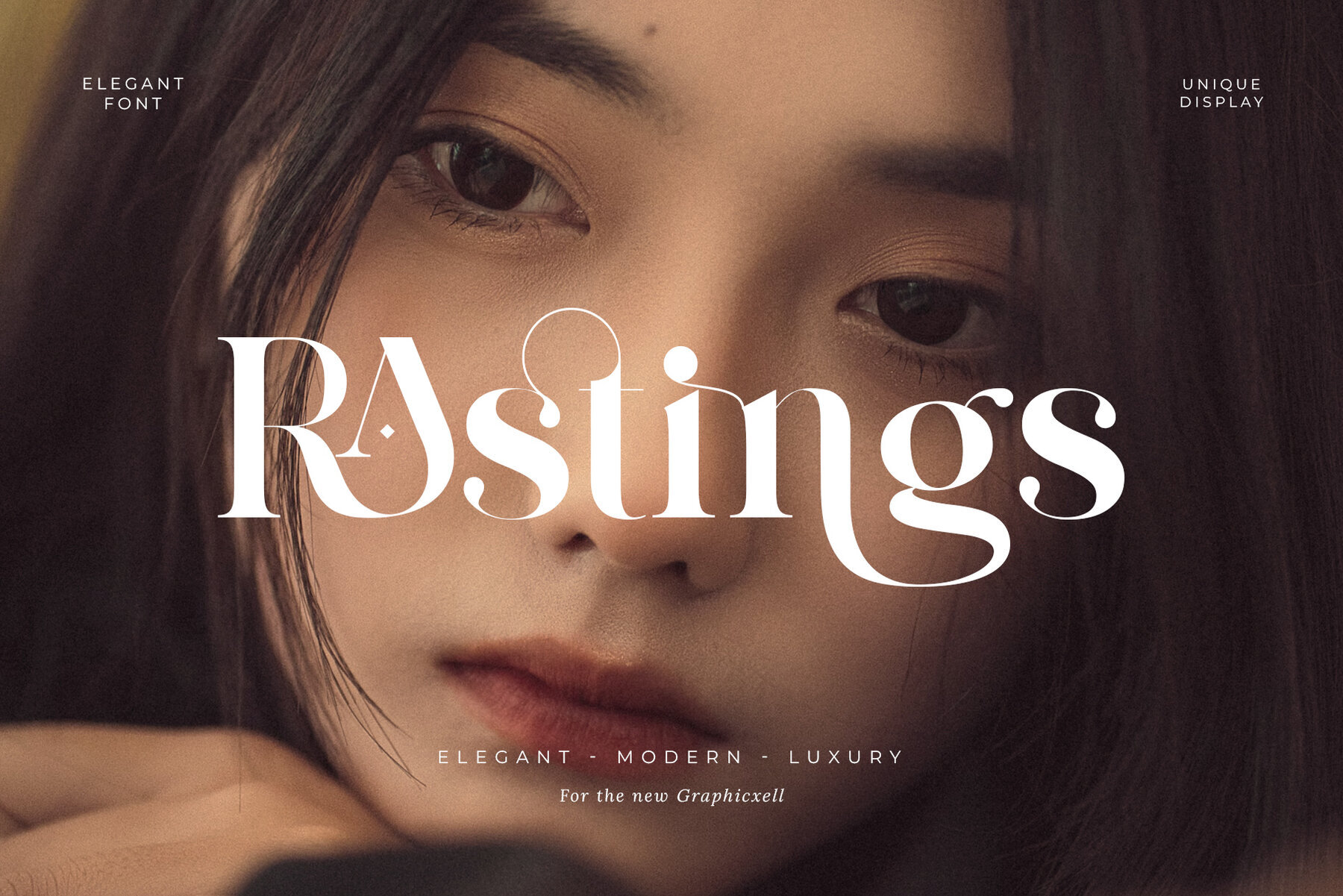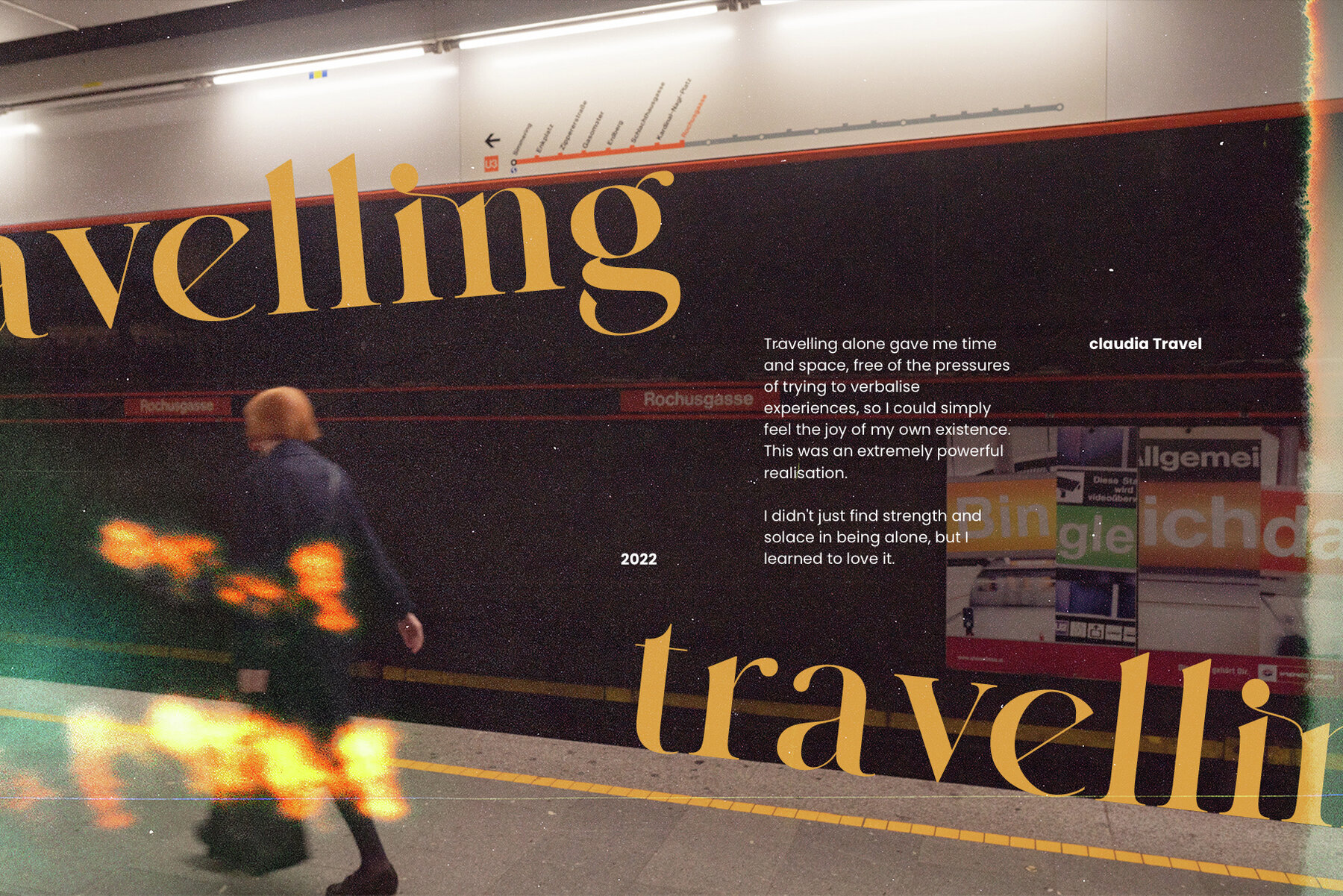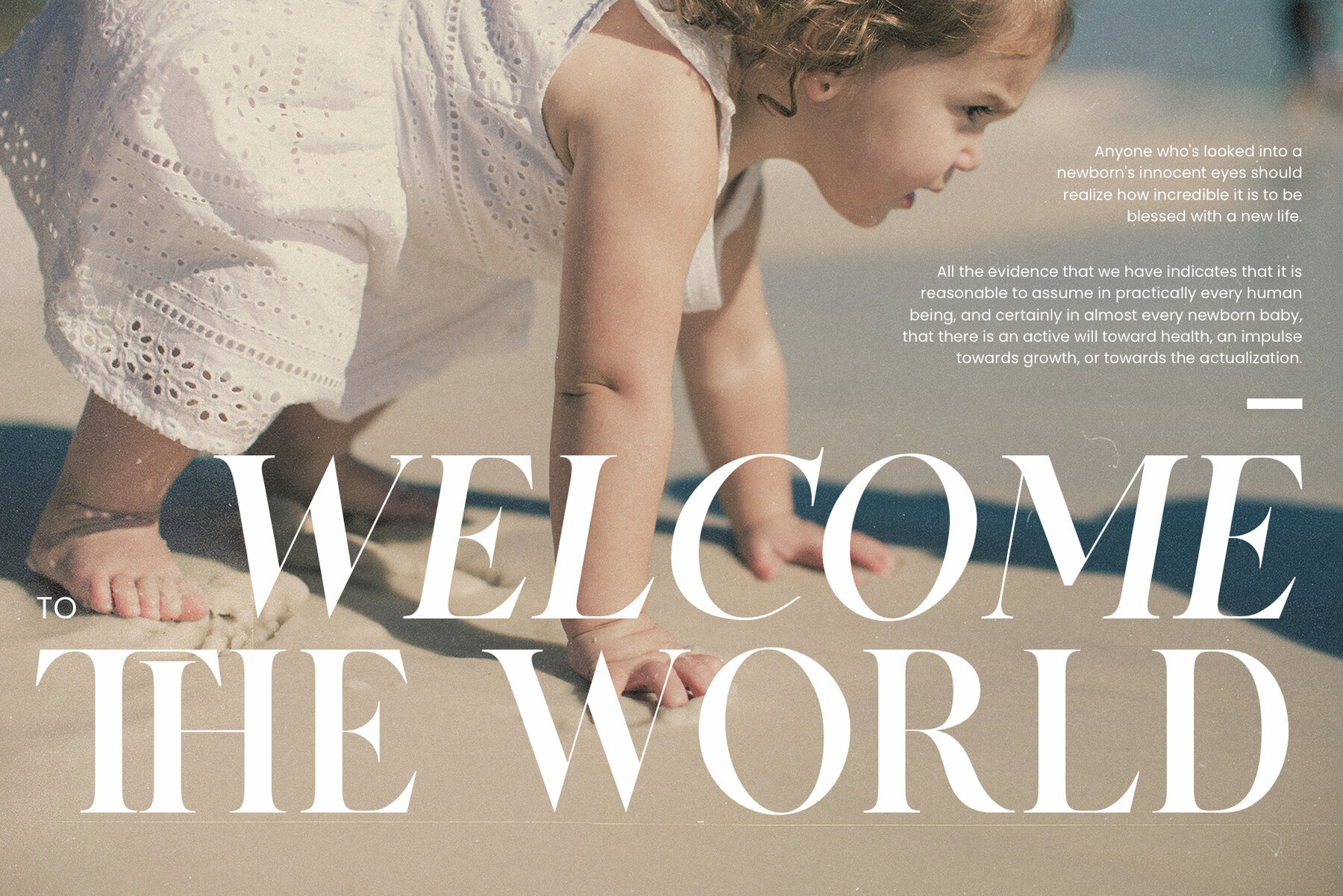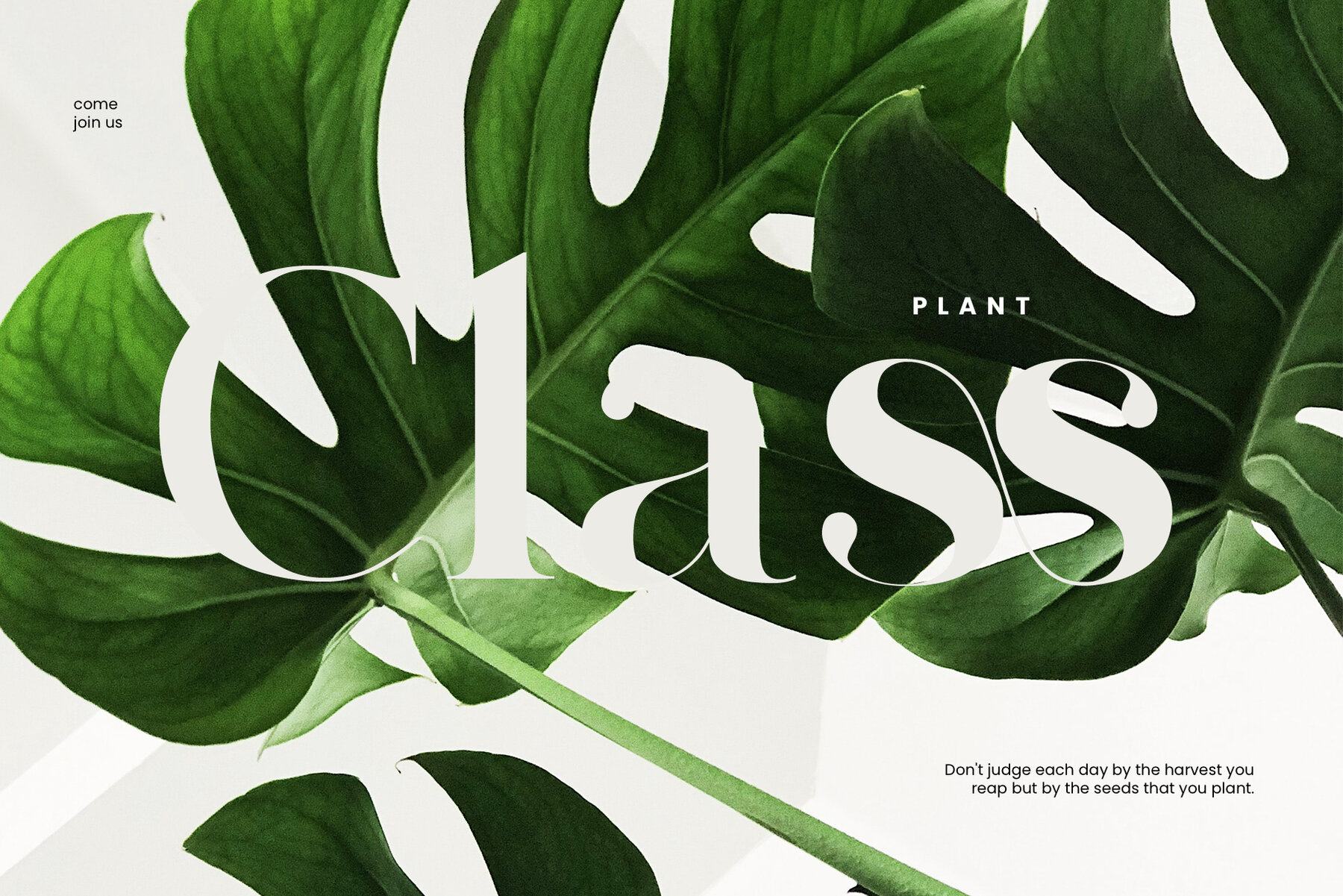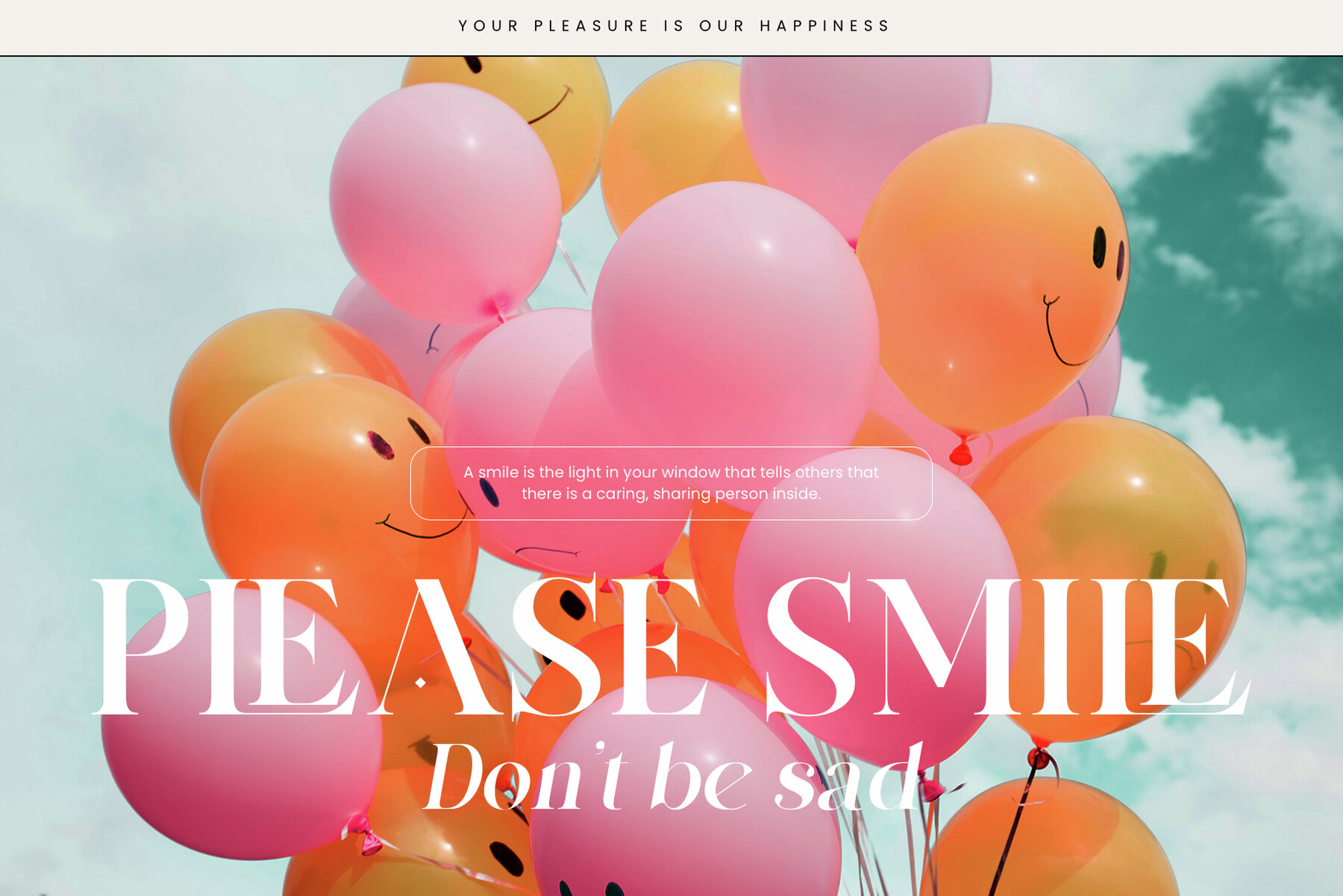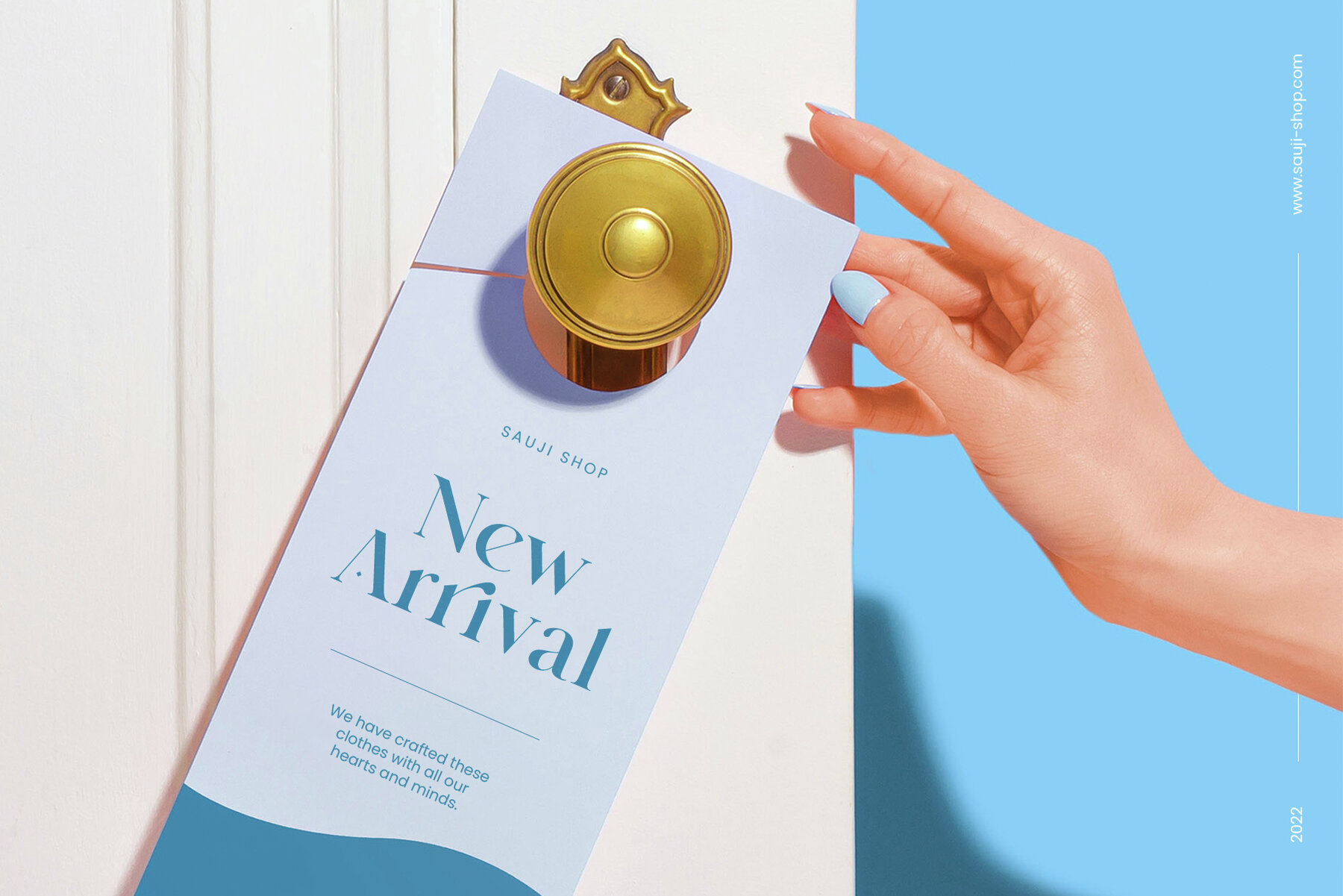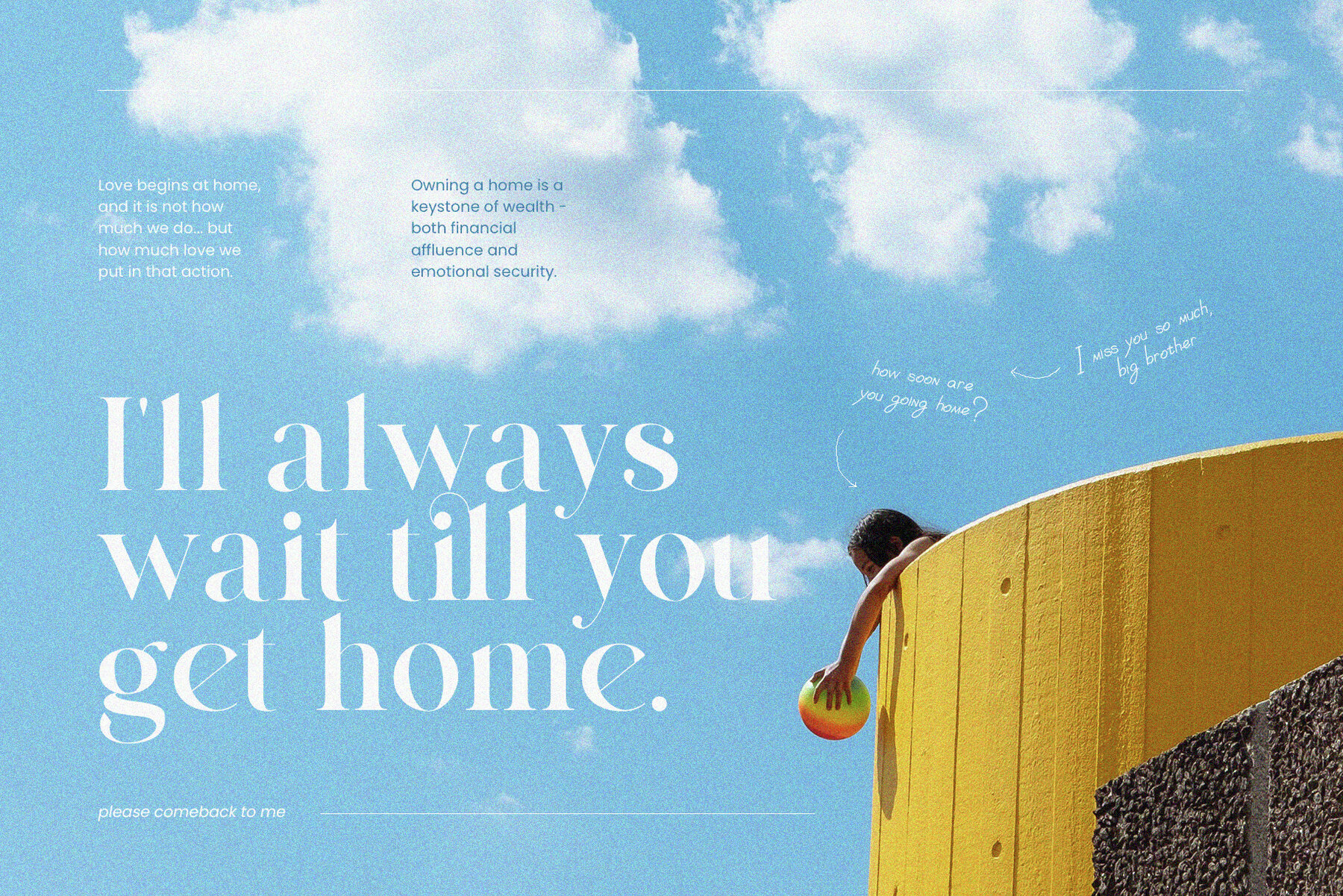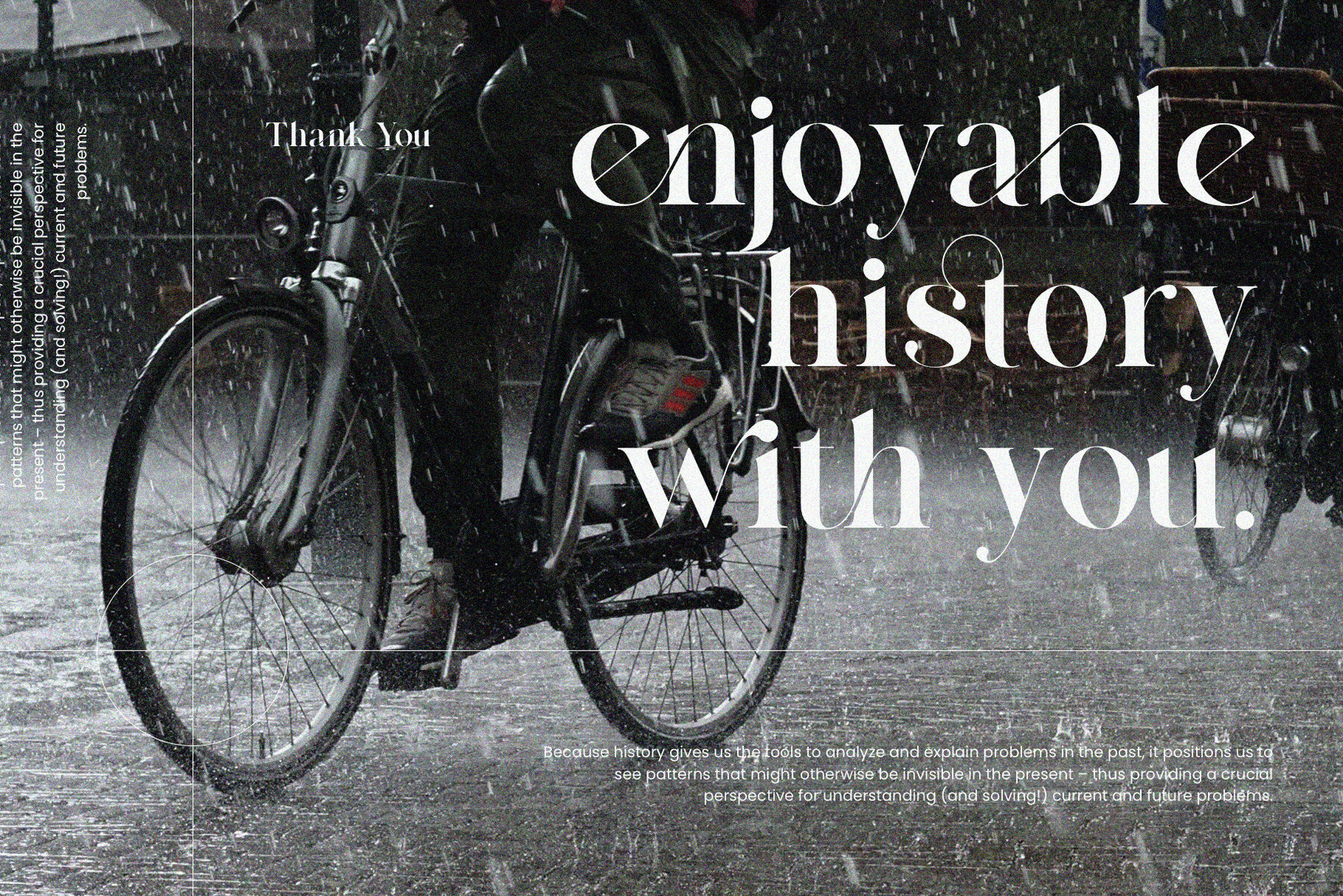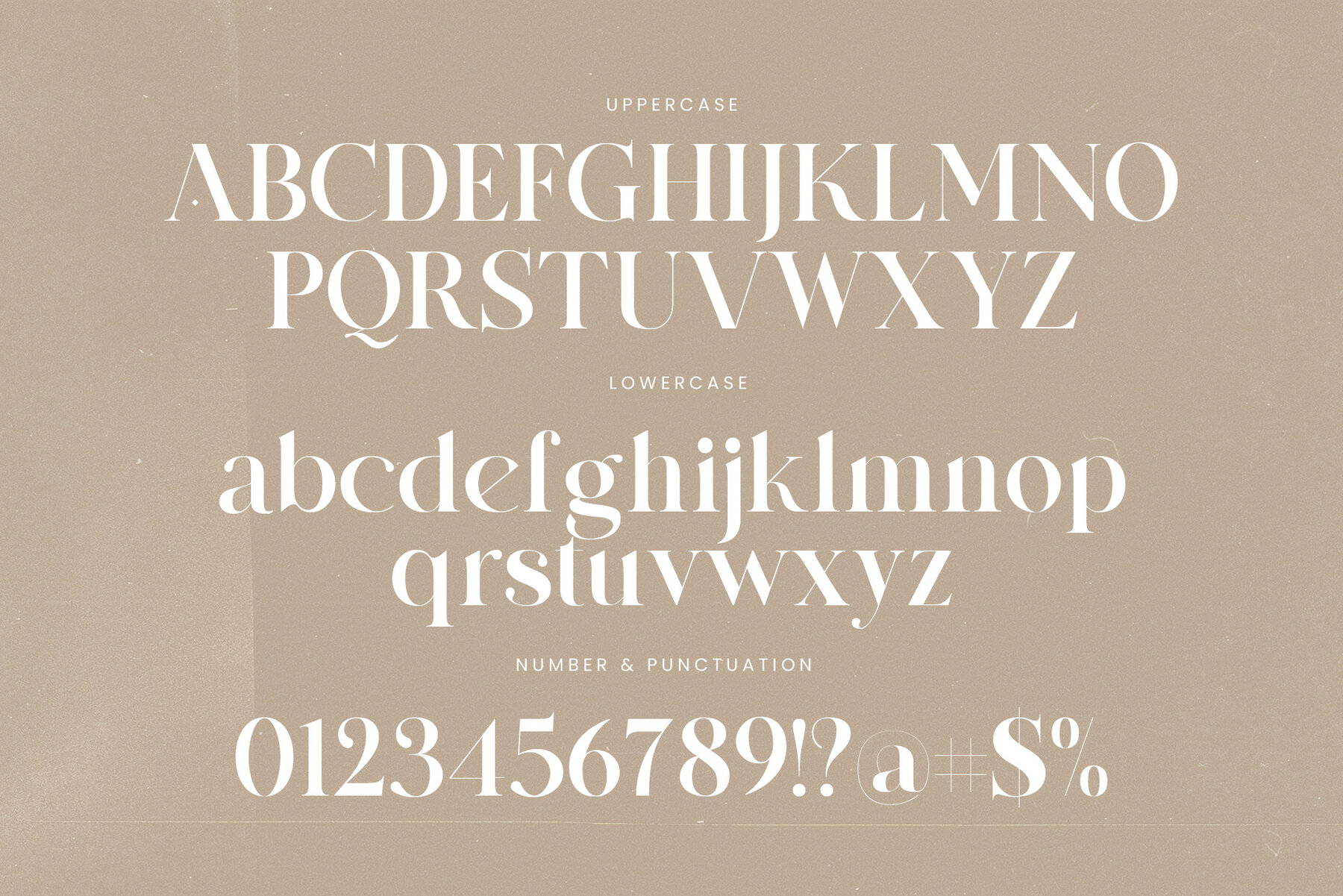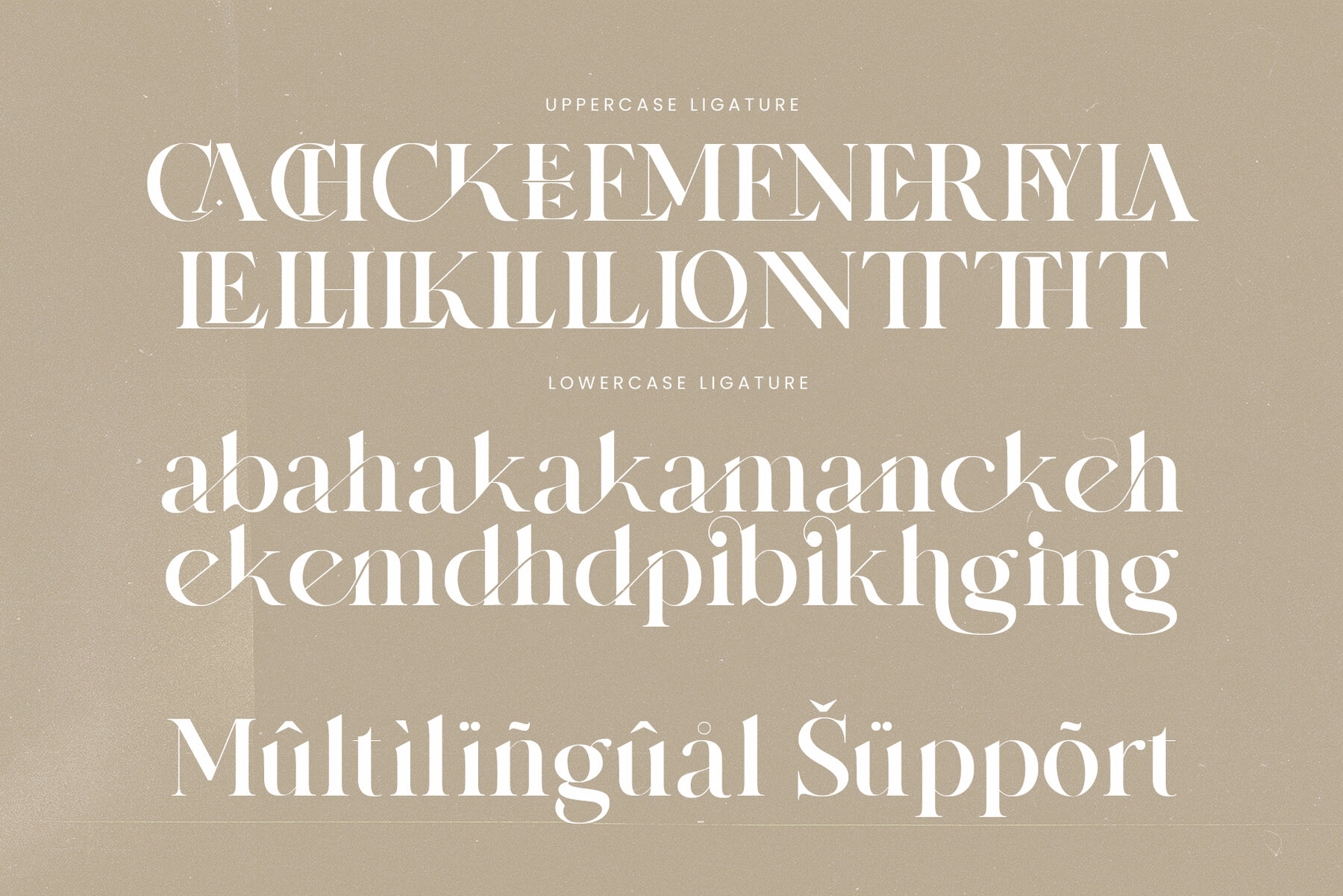
Rastings Font
Rastings Regular
inspired by the famous minimalist logo perfect for the purposes of designing templates, brochures, videos, advertising branding, logos, invitation, layout design, elegant crafting, beauty design and more.